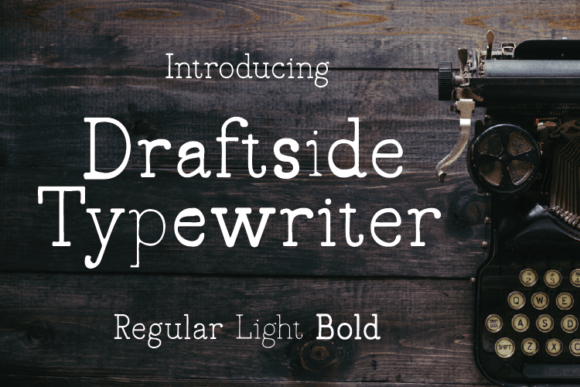
Prepare yourself for a typographic journey to the past, where vintage charm seamlessly blends with modern elegance - Introducing Draftside: The Exquisite Slab Serif Font. This remarkable font is a true masterpiece, painstakingly crafted by the skilled hands of Rvandtype. With its undeniable character and distinct style, Draftside is destined to captivate designers, branding experts, and creative enthusiasts.
Embark on an artistic adventure as you explore the depths of Draftside's captivating features. Experience the nostalgia of the typewriter era, reimagined with a contemporary twist. Witness the beauty of meticulously crafted curves and sharp edges, harmonizing to form a font that commands attention.
Unleash your creativity and let Draftside transform your words into striking headlines, captivating logos, and unforgettable branding elements. Its vintage undertones evoke a sense of authenticity and timelessness, while its modern touches ensure relevance and impact. Draftside effortlessly elevates the visual appeal of any project it graces.
Step into a world where elegance meets functionality. Draftside's PUA encoding opens up a realm of possibilities, granting you effortless access to an array of glyphs and alternates. Let your imagination run wild as you explore limitless creative avenues, effortlessly crafting designs that speak volumes.
Don't resist the allure of Draftside's charm. Incorporate it into your repertoire and witness the transformation of your creative projects. Prepare to be mesmerized by the stunning results, as Draftside weaves its magic, transforming your designs into captivating masterpieces.